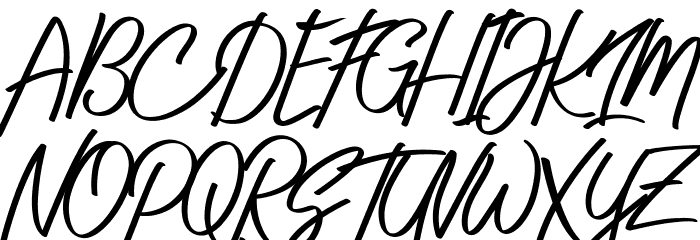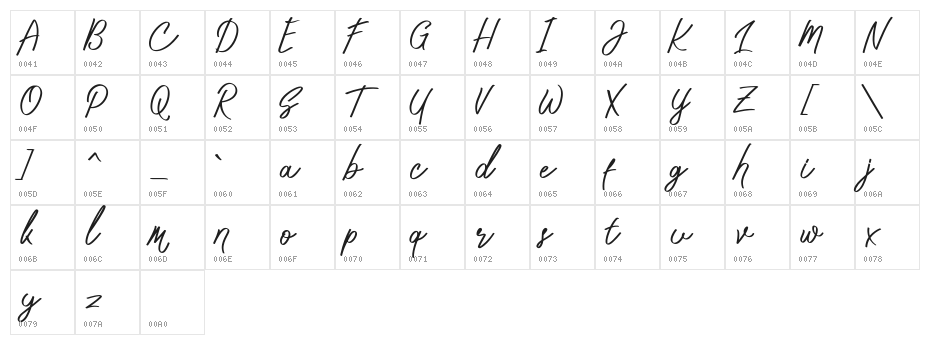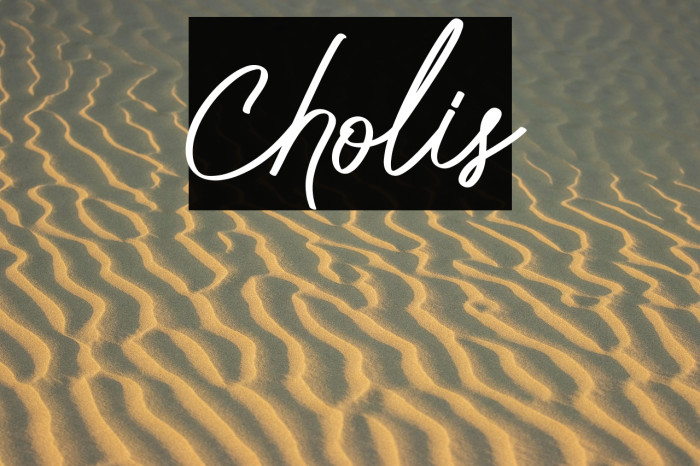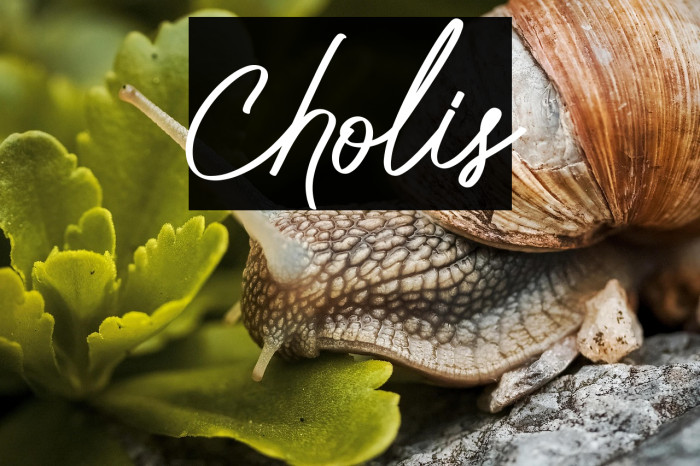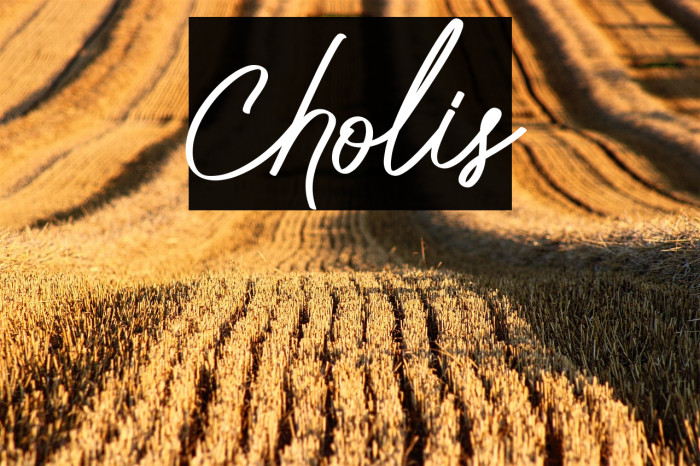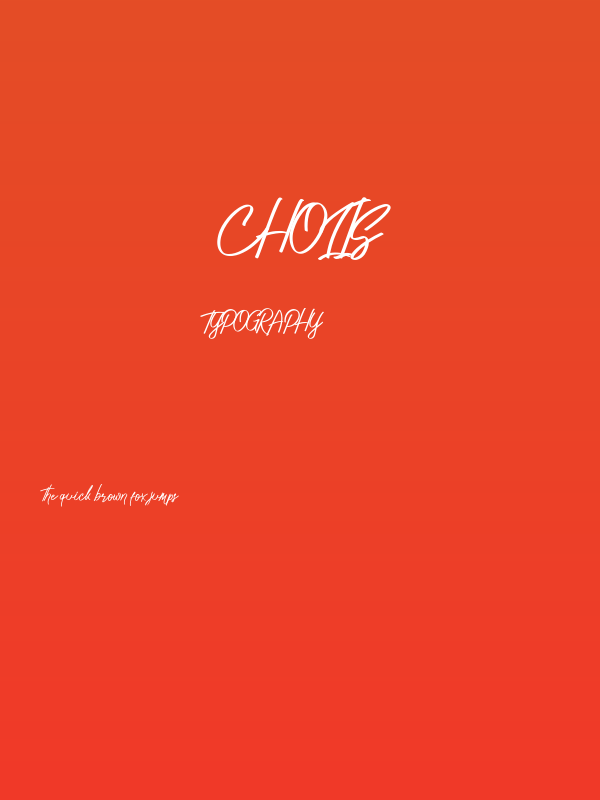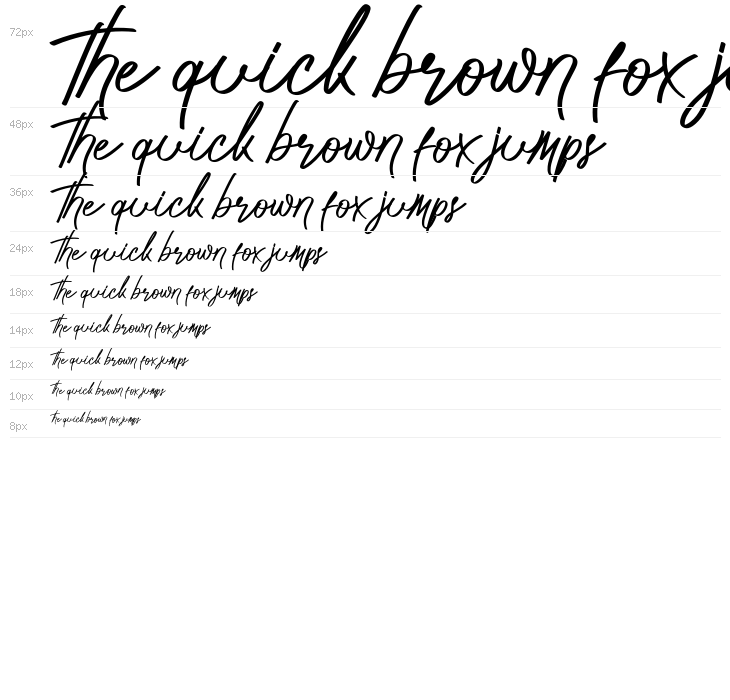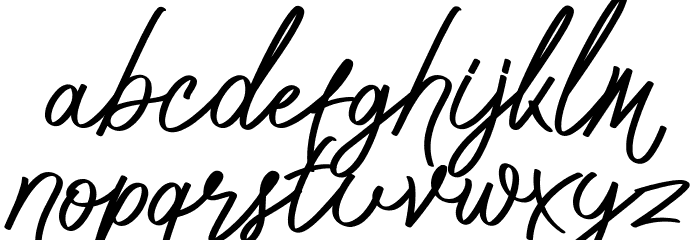
Cholis Font
Cholis Description
This font features a dynamic and expressive handwritten style, characterized by its fluid and cursive letterforms. The strokes are bold and confident, with a slight slant that adds a sense of motion and energy. Each character is distinct yet harmonizes well with others, creating a cohesive and artistic appearance. The uppercase letters are tall and commanding, while the lowercase letters maintain a consistent flow, enhancing readability. The font's overall aesthetic is both modern and playful, making it suitable for creative and informal applications. Its unique style captures attention and conveys a personal touch, ideal for projects that require a handwritten feel.